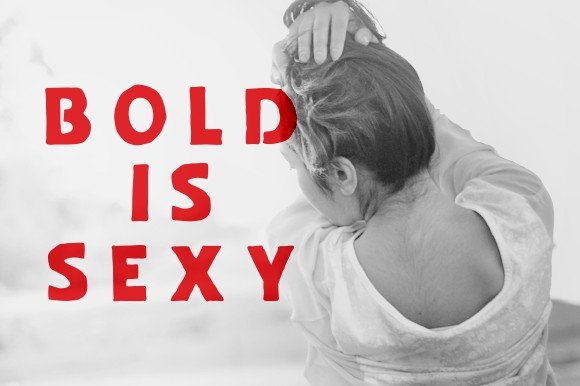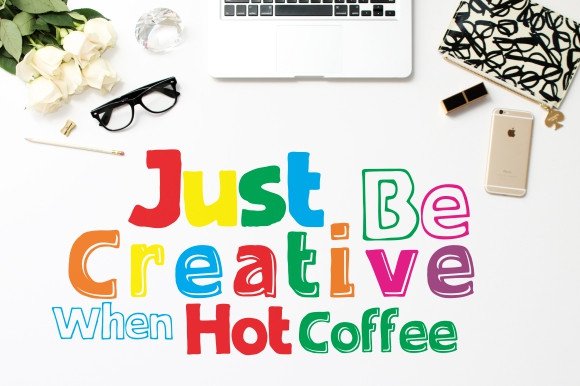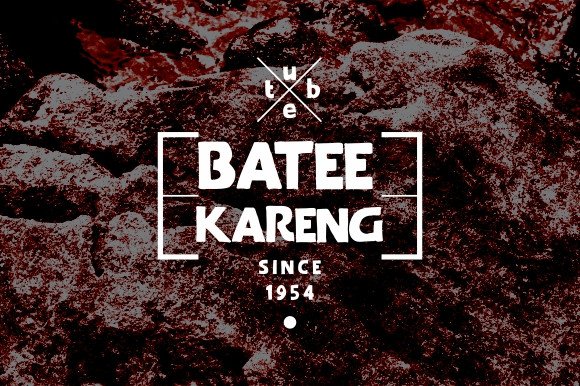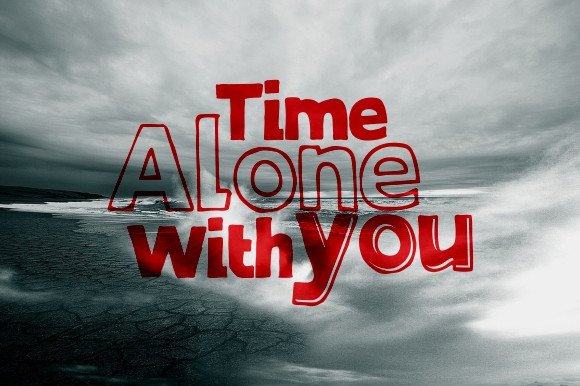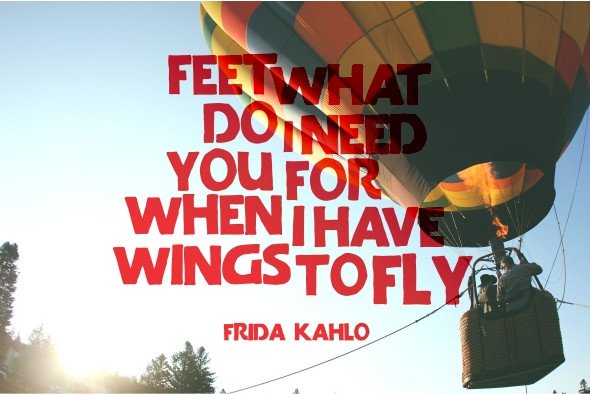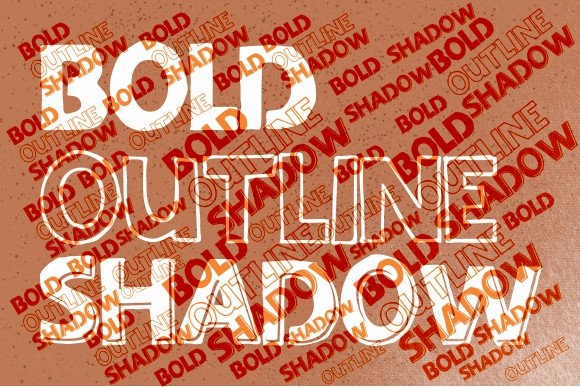
The Perfect Font for Friendly Designs: Unveiling the Arizona Family Font
Have you ever stared at a blank page, unsure of how to bring your creative vision to life? It’s a familiar feeling for many designers, but what if you had the perfect tool to make your ideas shine? That’s where the Arizona Family Font comes in – a funky, bold sans serif font designed to add a touch of friendliness to your designs.
Whether you’re working on a digital project or a print campaign, the Arizona Family Font is an ideal display option that’s sure to grab attention. Its versatility and playfulness make it a valuable addition to any designer’s toolkit, allowing you to create engaging and approachable designs that connect with your audience. With the Arizona Family Font, you can bring your creative vision to life in a whole new way.
Key Features of Arizona Family Font
- Unique Characteristics: Features a warm and inviting design, with a mix of serif and sans-serif elements, making it perfect for use in family-friendly contexts, such as children’s books, educational materials, and family magazines.
Arizona Family Font Review
Overall, I think the Arizona Family Font has a certain charm to it. ✨ The rounded edges and subtle curves give it a friendly, approachable feel that’s perfect for family-oriented projects or brands.
Here are some things that I think work well:
- Legibility: The font is clear and easy to read, even at smaller sizes.
- Flexibility: The font comes in a range of weights and styles, making it versatile for various design applications.
- Warmth: The font’s rounded edges and subtle curves give it a warm, inviting feel that’s perfect for family-oriented projects.
- Lack of boldness: While the font has a range of weights, it’s not particularly bold or striking, which may make it less suitable for headlines or titles.
- Limited uniqueness: The font’s style is somewhat reminiscent of other popular fonts, which may make it less distinctive or memorable.
- Not ideal for high-contrast designs: The font’s rounded edges and subtle curves may not be the best choice for designs with high contrast or bold typography.
Overall, I think the Arizona Family Font is a solid choice for family-oriented projects or brands that want a friendly, approachable feel. However, it may not be the best fit for designs that require boldness, uniqueness, or high contrast.
For best results, use the Arizona Family Font for titles, headings, and body text in family-related projects, such as family newsletters, reunion invitations, and parenting blogs.
The Arizona Family Font is available in three weights: Regular, Medium, and Bold. Each weight has a corresponding italic style, providing a total of six font styles. The font also includes a range of ligatures and contextual alternates to enhance readability and typographic consistency.